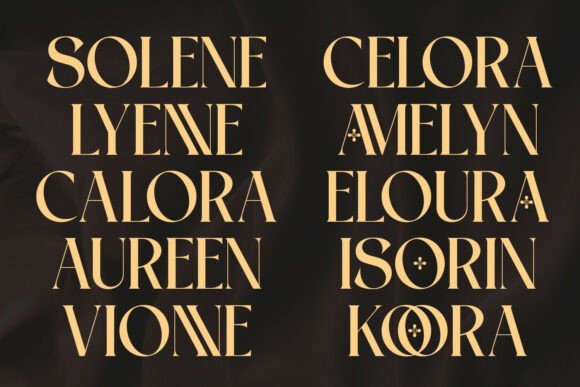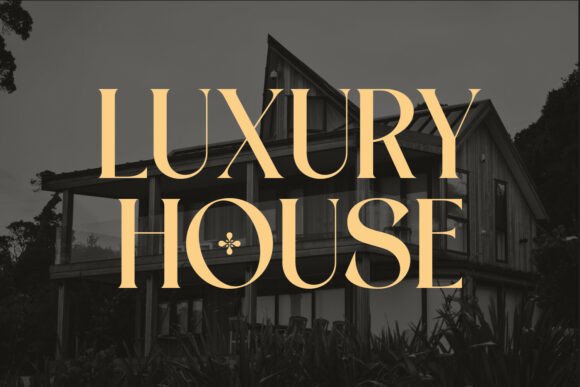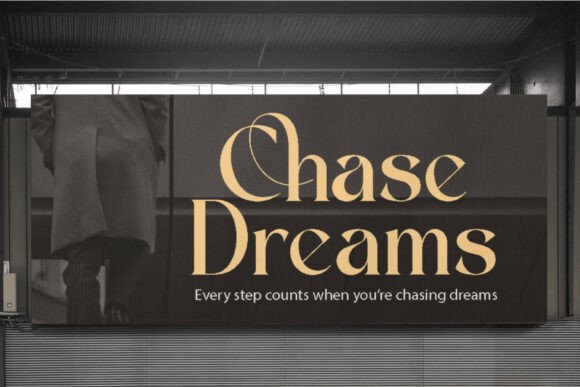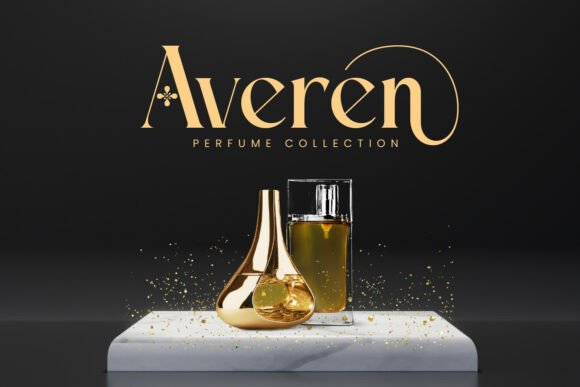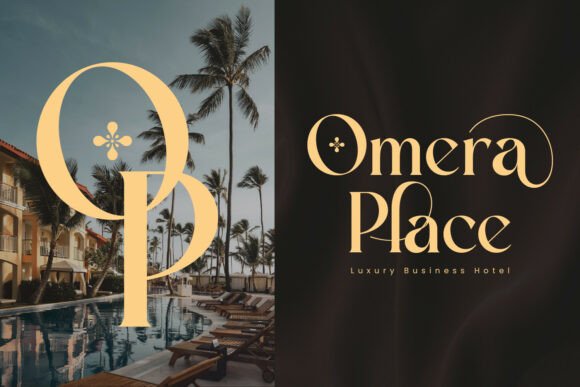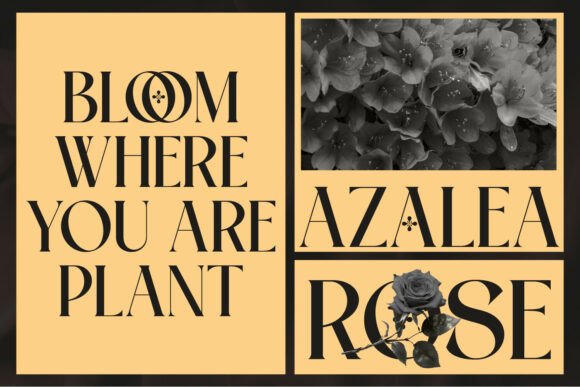
Introducing Flangel Font: The Epitome of Luxury Serif Typography
In the realm of typography, few fonts manage to strike a balance between classic elegance and modern sophistication. Flangel Font is one such exquisite serif typeface that has captured the essence of luxury and refinement. With its elegant curves, nuanced details, and high-contrast serifs, Flangel embodies a contemporary yet classic style that is sure to elevate any design project.
A Masterful Blend of Classical and Modern Elements
Flangel is a breathtaking luxury serif font that seamlessly blends classical elegance with a sophisticated, modern display sensibility. The core structure of the font features high-contrast serifs with dramatic thin strokes and strong verticals, conveying an immediate sense of prestige and premium quality. This masterful blend of classical and modern elements makes Flangel an ideal choice for designers seeking to create luxurious branding, editorial compilations, beauty commodities, wedding concepts, and logo crafting.
The Beauty of Alternate Swash Characters
What sets the Flangel typeface apart are its exquisite alternate swash characters, which introduce delicate, sweeping curves and elaborate connections. The āFā and āgā characters are exemplary of this feature, transforming headlines into captivating artistic statements. These alternate swash characters offer designers a creative way to add a touch of elegance and sophistication to their designs, making Flangel a versatile font for various creative endeavors.
Crafted for Sophistication and Exclusivity
Crafted to encapsulate sophistication and exclusivity, every character in the Flangel font boasts fluid transitions and artistic contours, delivering a first-rate visual treat. The font’s designer has paid meticulous attention to detail, ensuring that each character is a masterpiece of typographic art. Whether you’re working on a luxury branding project, an editorial compilation, or a beauty commodity, Flangel is sure to impress with its refined and elegant appearance.
Ideal for Creative Endeavors
Flangel is an ideal font for various creative endeavors demanding an upmarket and sophisticated look. Some of the ideal uses for Flangel include:
- Luxurious branding: Flangel’s elegant and refined appearance makes it perfect for luxury brands seeking to create a high-end image.
- Editorial compilations: The font’s classic yet modern style makes it suitable for editorial projects, such as magazines, newspapers, and books.
- Beauty commodities: Flangel’s sophisticated and elegant appearance makes it an excellent choice for beauty brands seeking to create a luxurious image.
- Wedding concepts: The font’s romantic and elegant style makes it perfect for wedding-related designs, such as invitations, programs, and decorations.
- Logo crafting: Flangel’s unique and refined appearance makes it an excellent choice for logo crafting, particularly for luxury brands.
Design Tips and Tricks
To get the most out of Flangel, here are some design tips and tricks:
- Use Flangel in large sizes to showcase its elegant curves and nuanced details.
- Experiment with different colors to find the perfect shade that complements your design.
- Pair Flangel with other fonts to create a unique and visually appealing typography.
- Use the alternate swash characters to add a touch of elegance and sophistication to your design.
Flangel Font is a luxury serif typeface that embodies the perfect blend of classic elegance and modern sophistication. With its exquisite alternate swash characters, high-contrast serifs, and refined appearance, Flangel is sure to elevate any design project. Whether you’re a designer, crafter, or simply a typography enthusiast, Flangel is an excellent addition to your font collection.